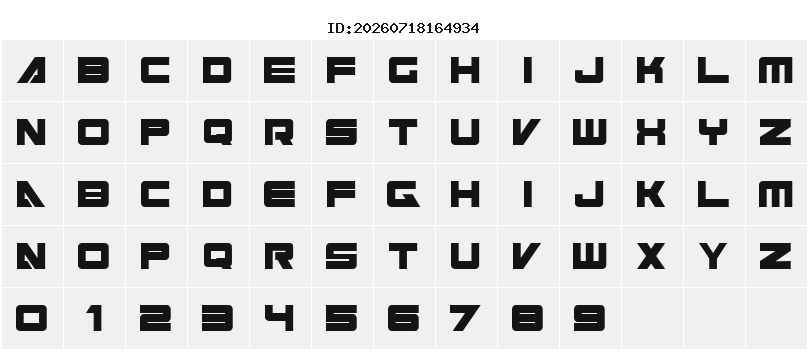
Cyberspace Preview
• Font Name: Cyberspace
• Full Font Name: Cyberspace
About Cyberspace.ttf
Cyberspace.ttf is a modern, elegant sans-serif font designed for ultimate readability and visual harmony. Perfect for branding, headlines, web design, and print materials.